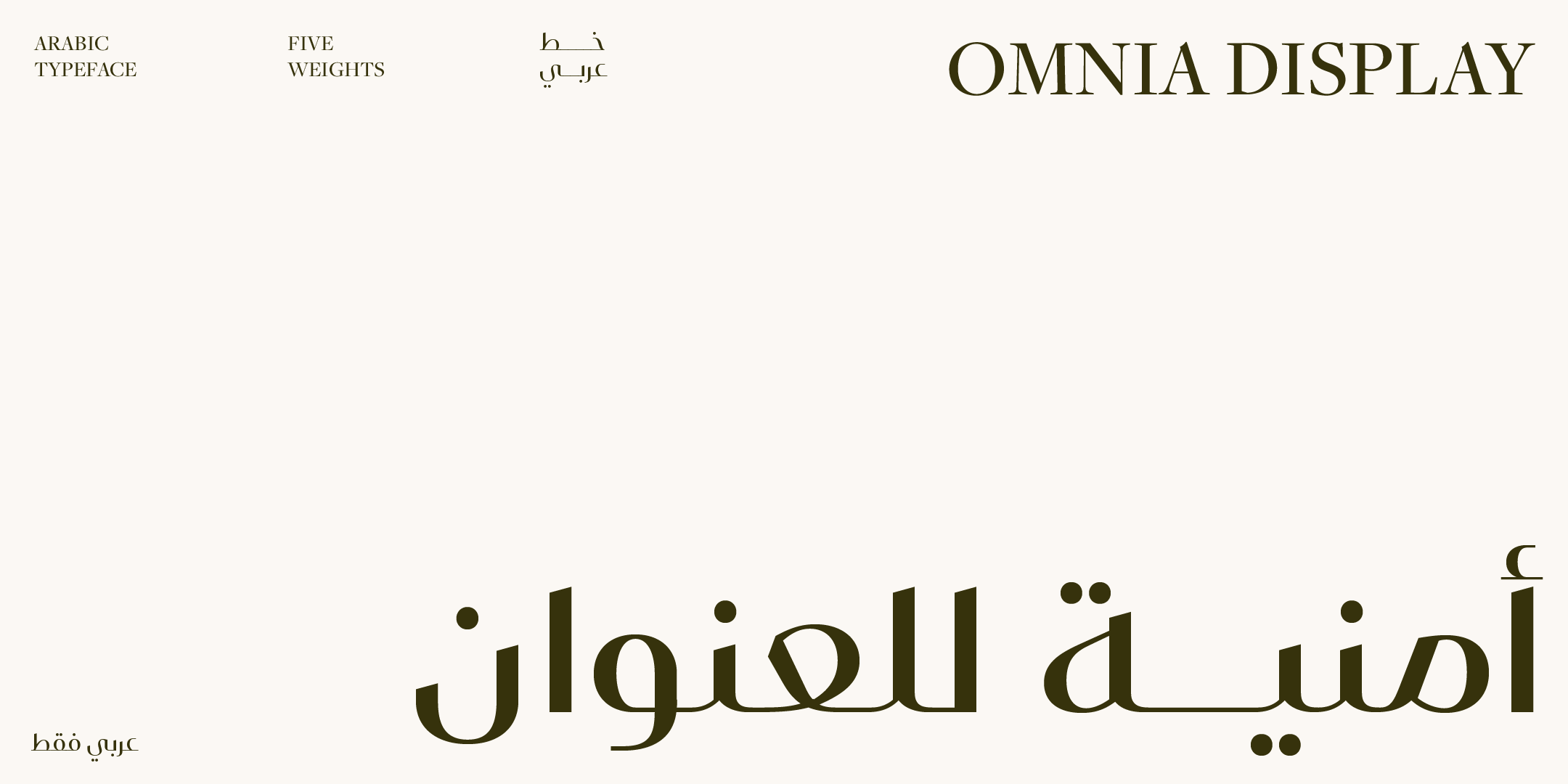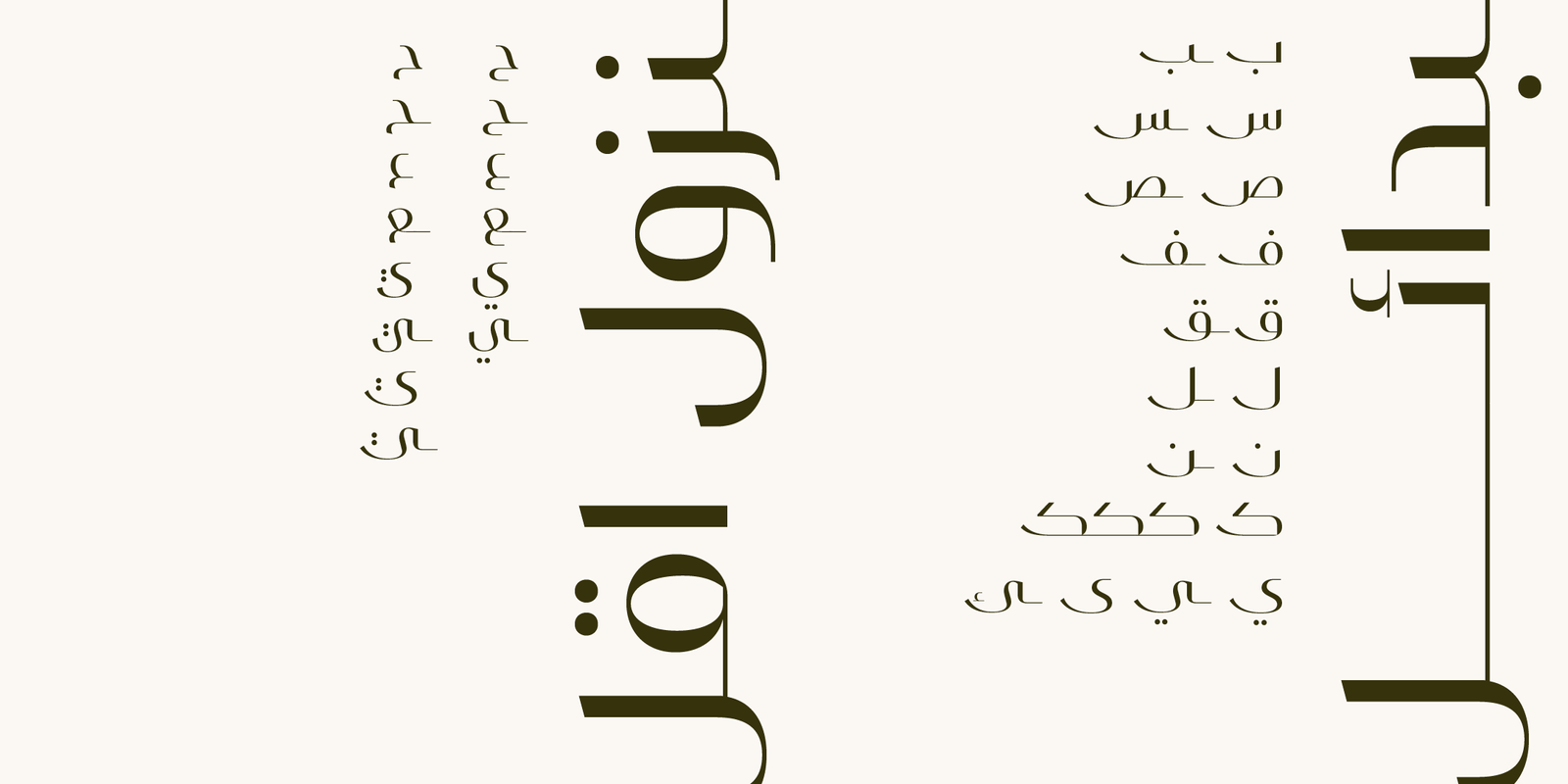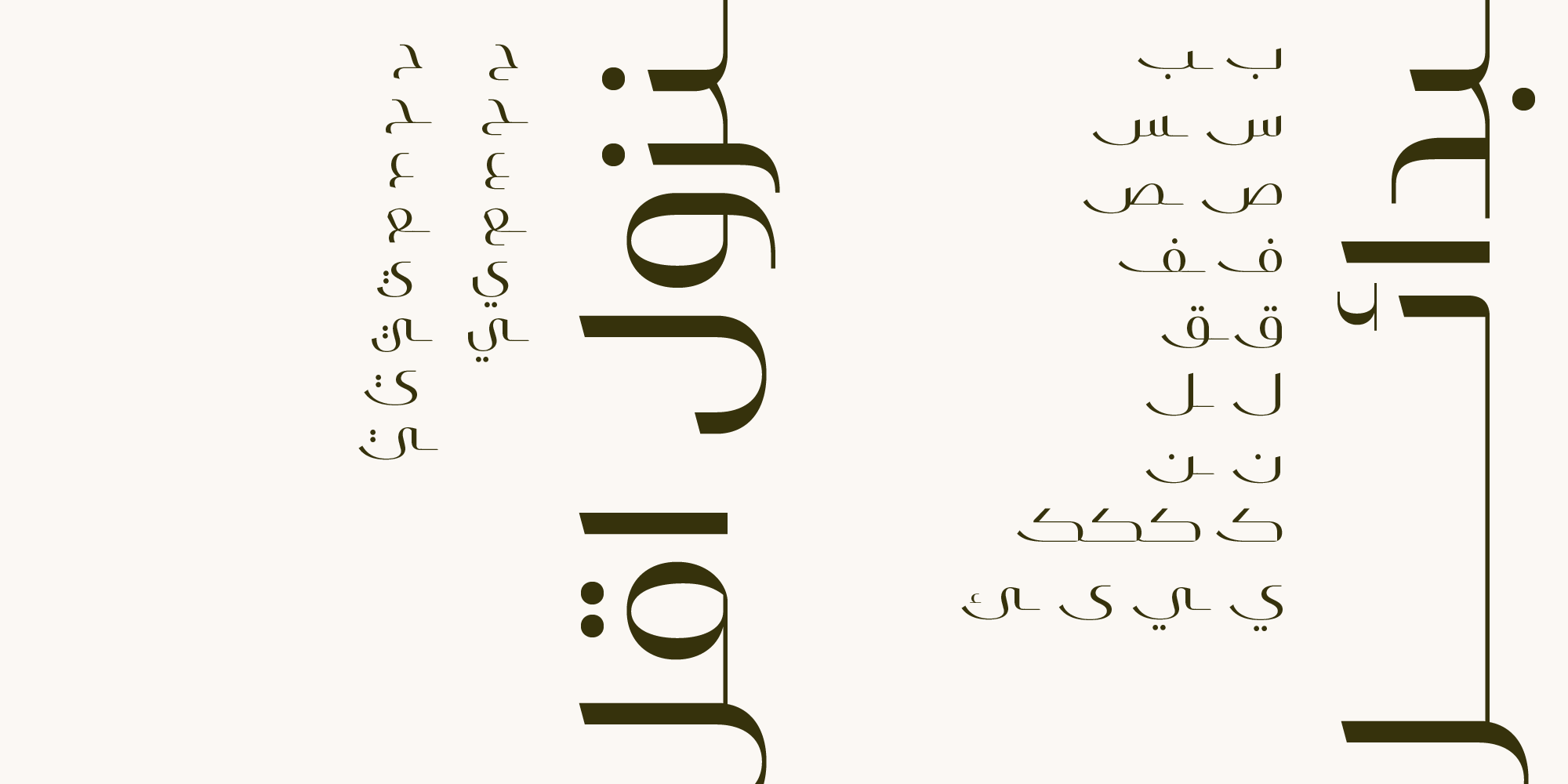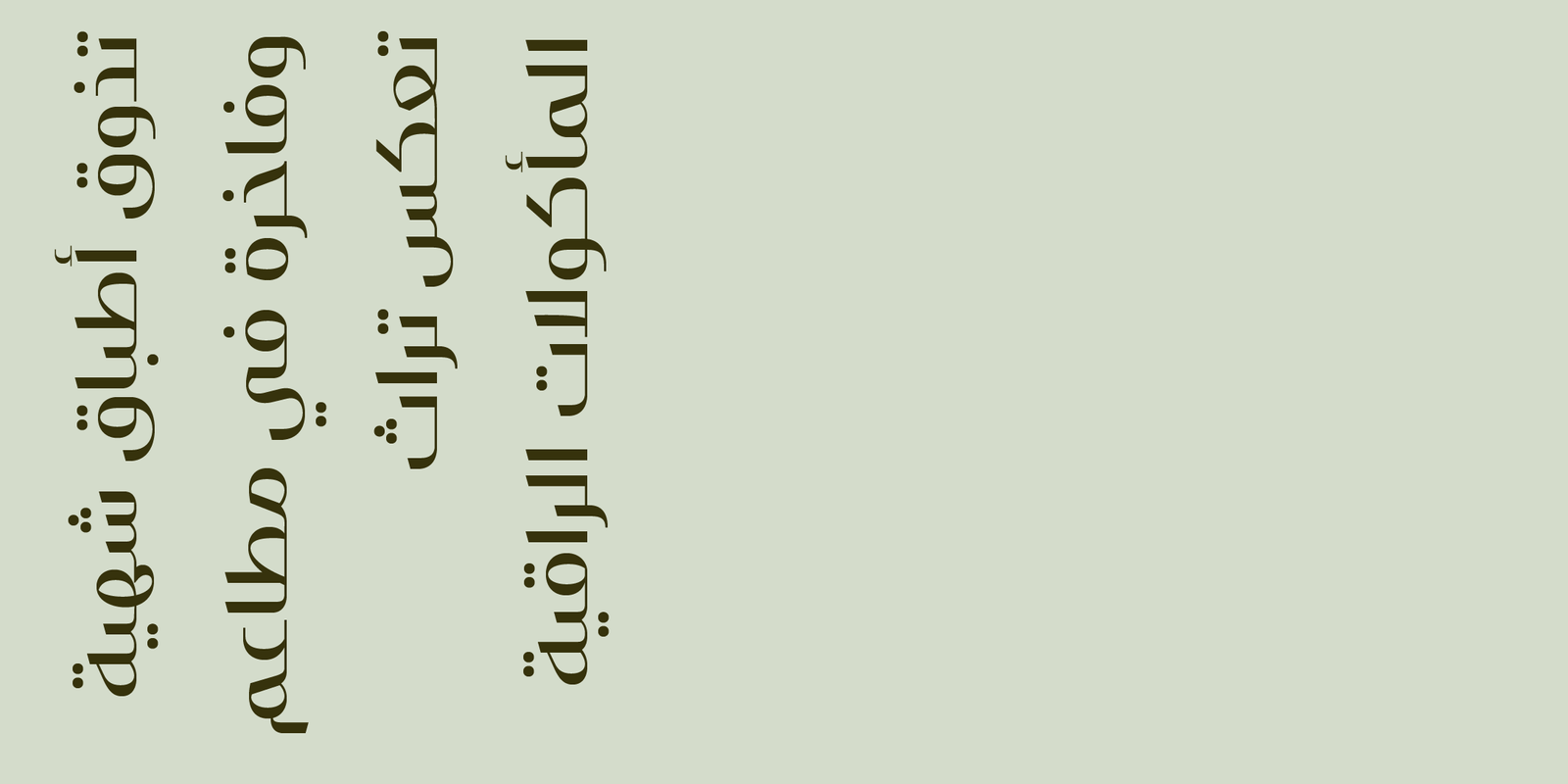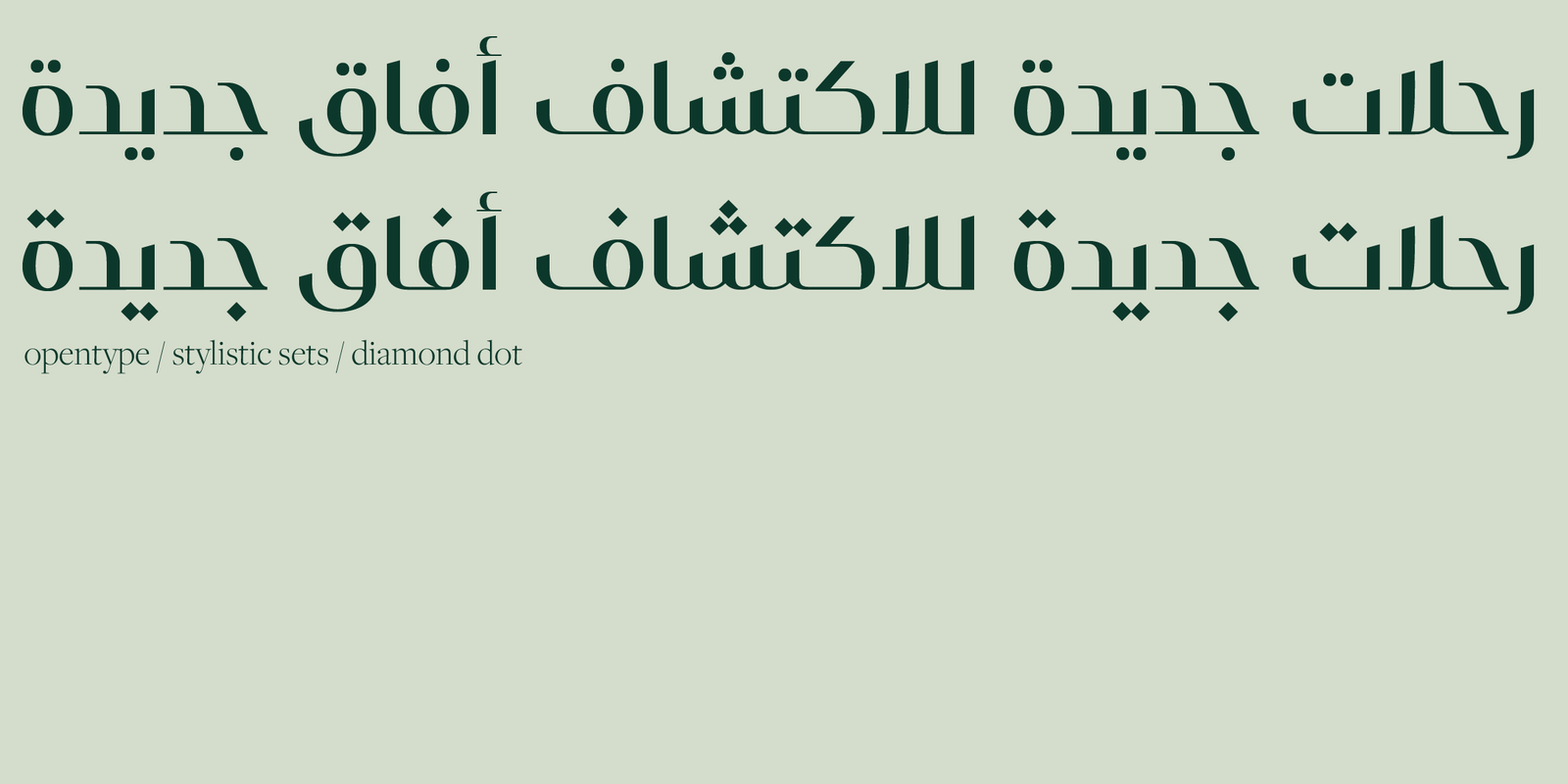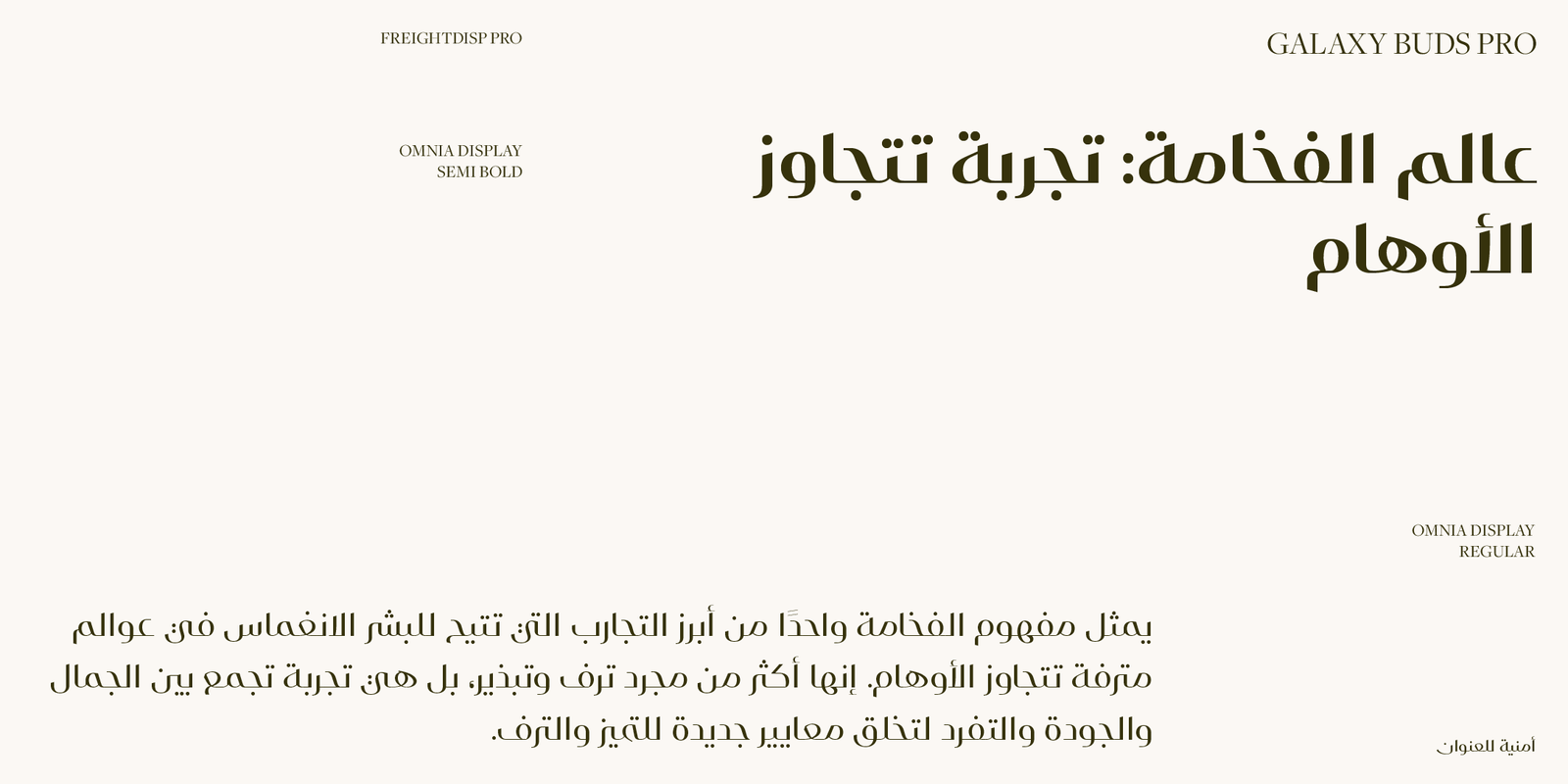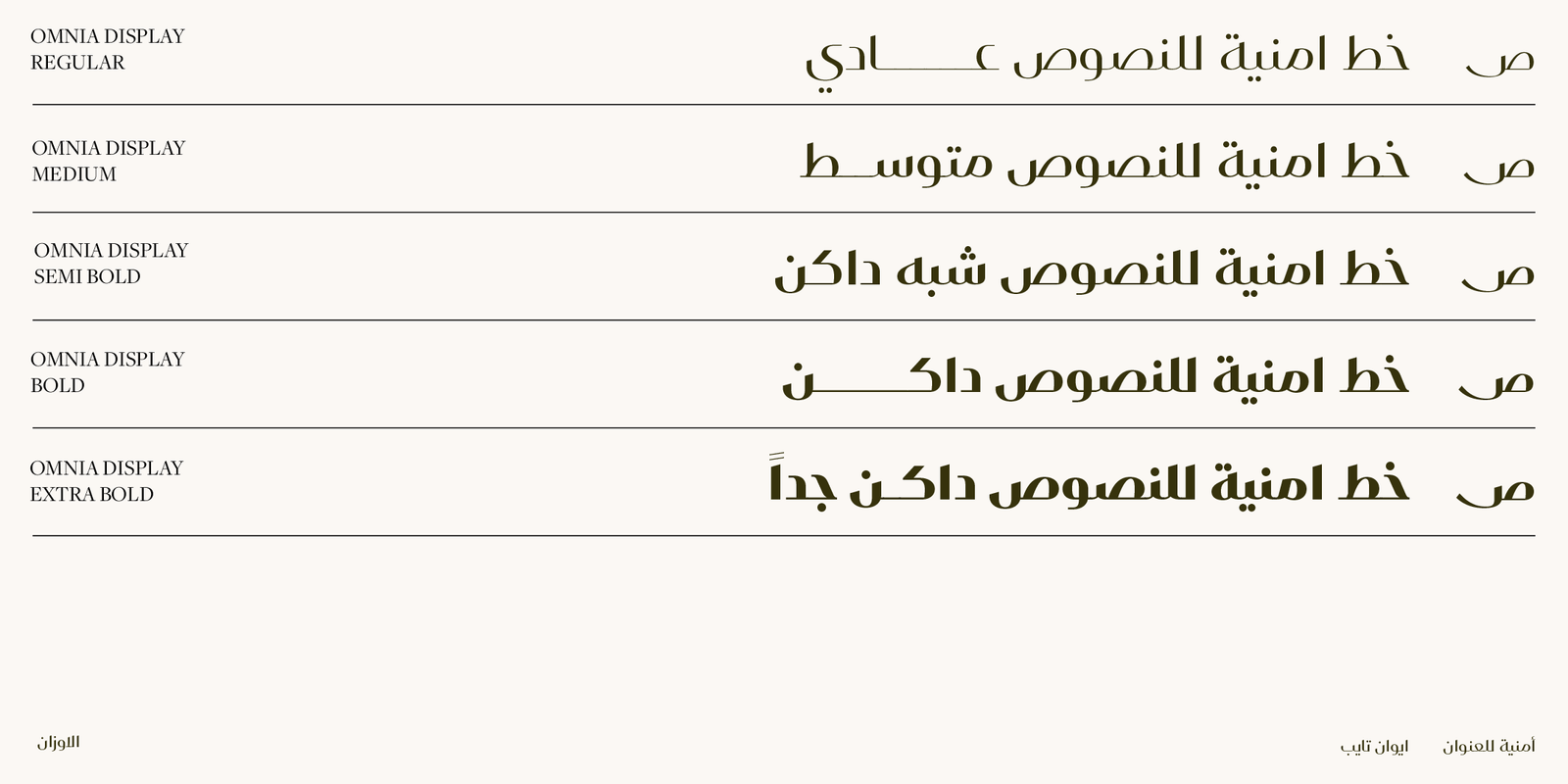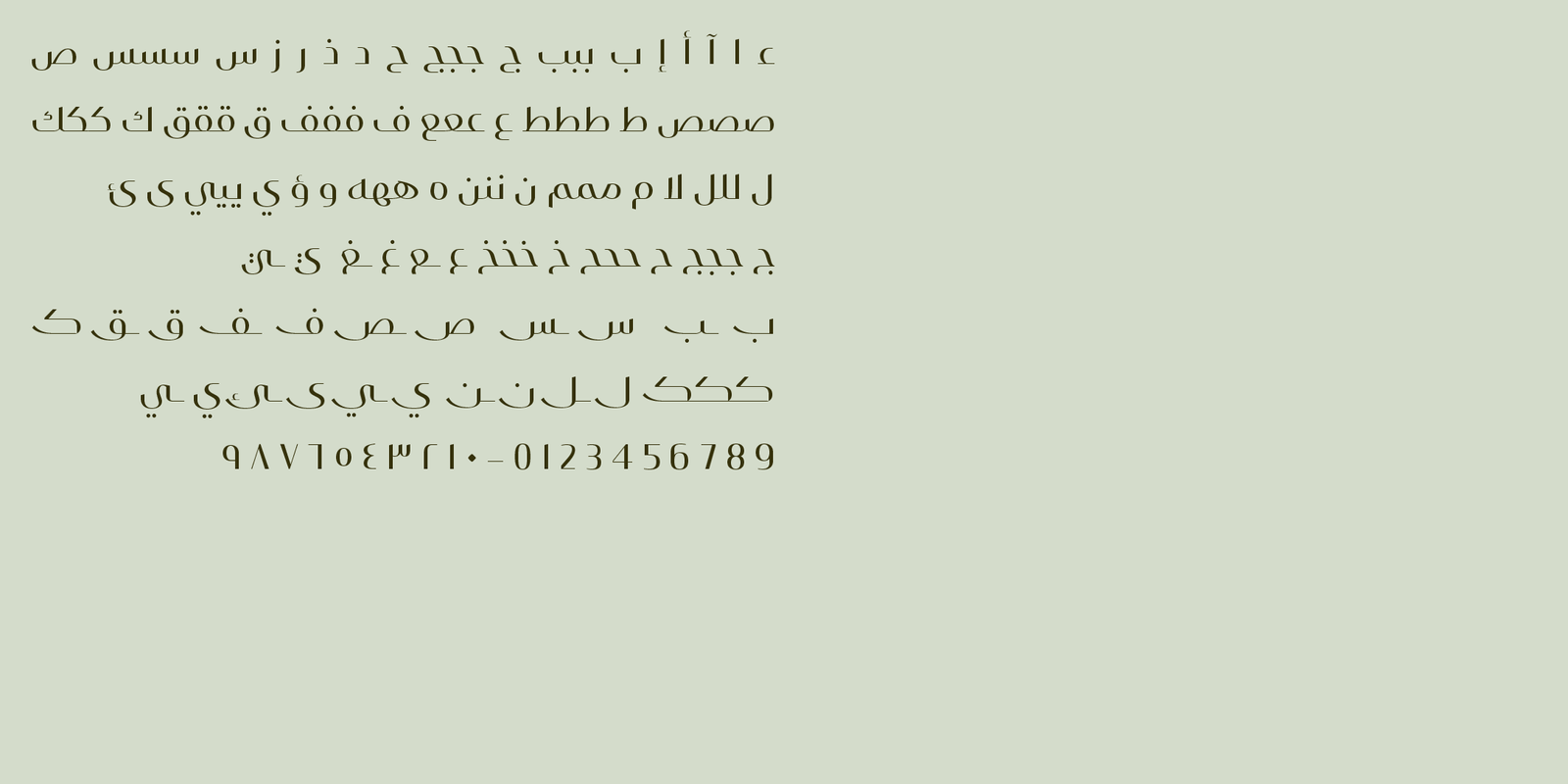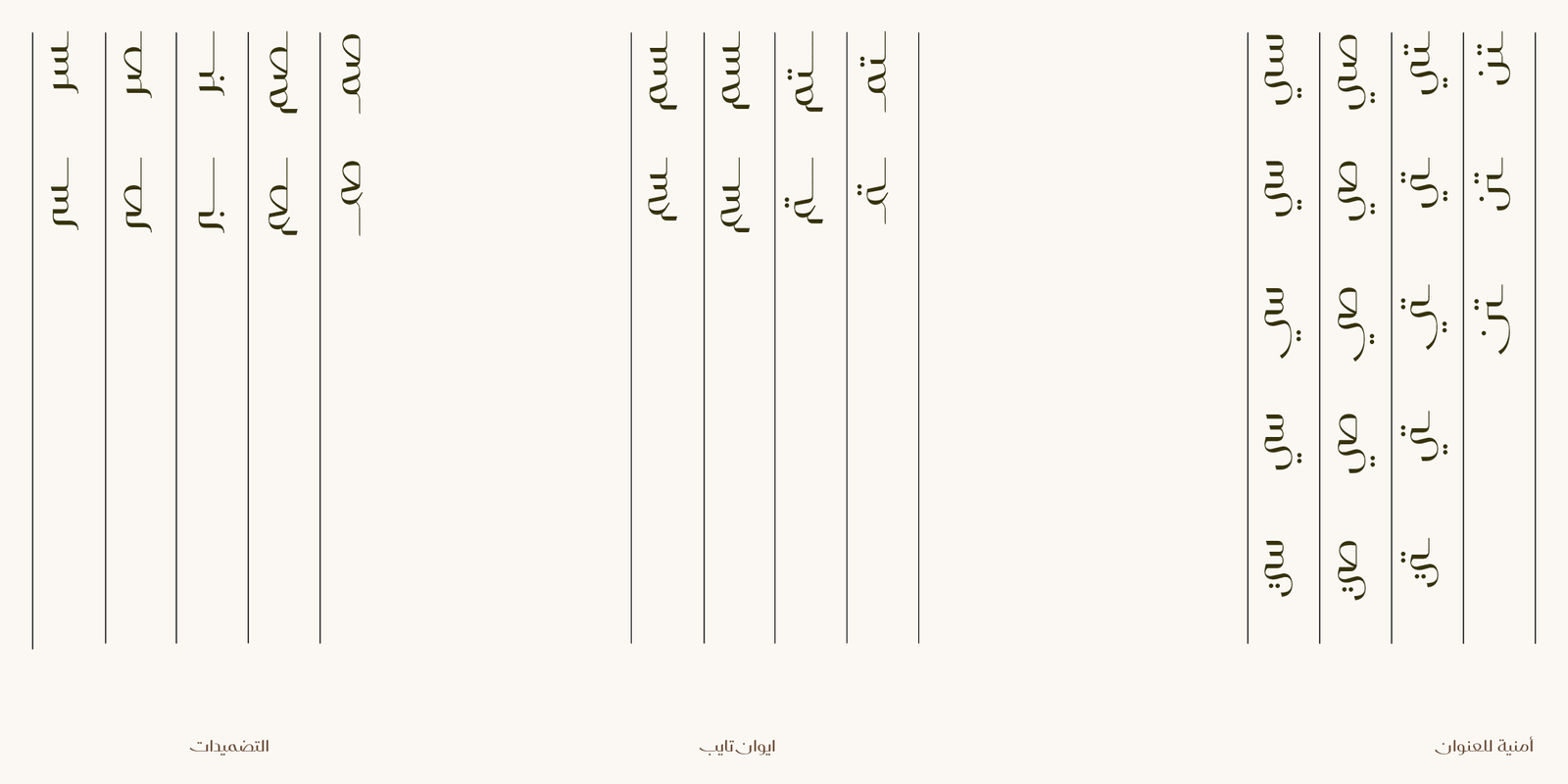
Omnia display typeface – خط أمنية للعناوين
Omnia Arabic is an Arabic typeface that embodies the essence of elegance and fluidity. This beautifully crafted Arabic typeface is a harmonious amalgamation of graceful curves and exquisite aesthetics, designed to captivate and inspire.
Omnia Arabic’s core design philosophy centers around the seamless fusion of curves, each stroke flowing gracefully into the next. This results in a writing system that conveys a sense of effortless motion and inherent beauty, capturing the essence of the Arabic script’s natural flow.
One of the most distinctive features of Omnia Arabic is its extensive array of OpenType features. These features offer a world of possibilities, empowering designers and users to bring their creative visions to life. Omnia Arabic boasts an array of alternative glyphs, allowing for diverse character variations that cater to various design needs. From elegant swashes to unique ligatures, each alternative presents a delightful array of choices to enhance your typographic expression.
Omnia Arabic comes in five meticulously crafted weights, providing versatility and flexibility to adapt to any design context. Whether you seek a delicate touch in a light weight or a bold statement with a heavy weight, Omnia Arabic ensures that every visual representation maintains its charm and finesse.
اللغات: العربية فقط، بلا حروف لاتينية
الاوزان : خمسة اوزان